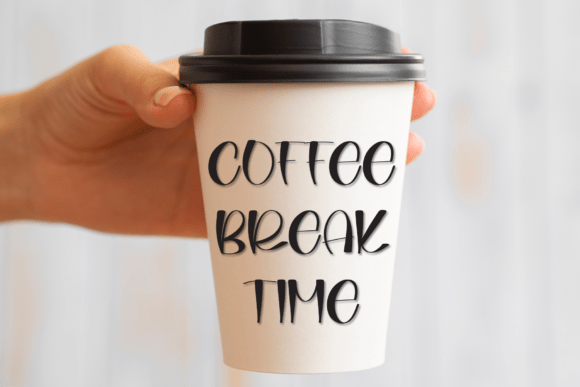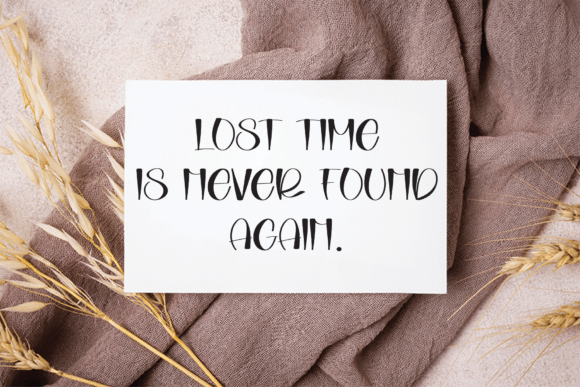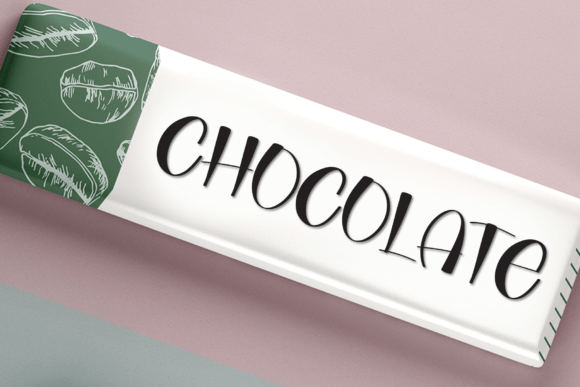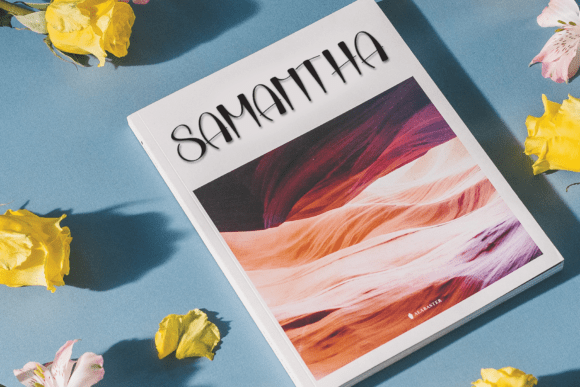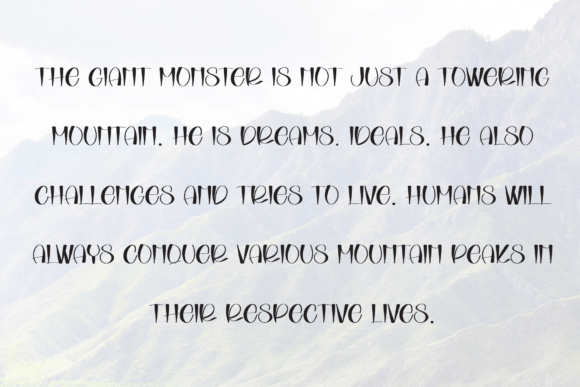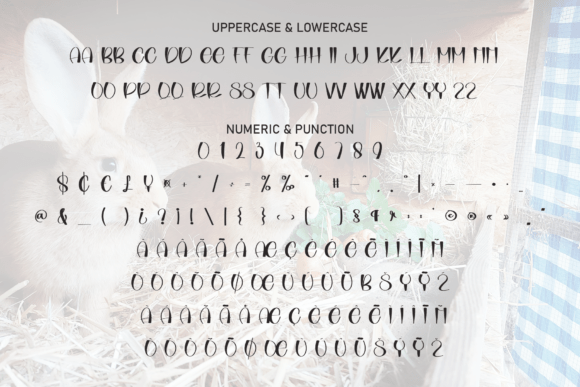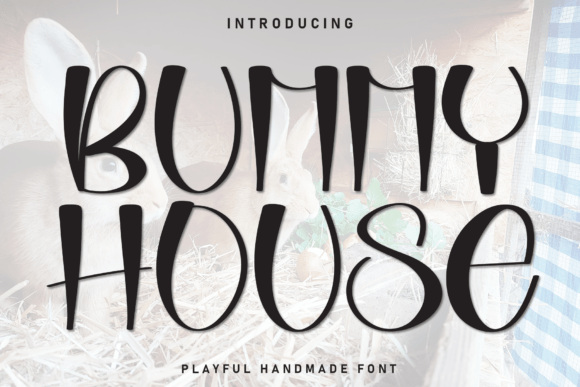
Bunny House Font: The Perfect Blend of Simplicity and Friendliness
In the world of typography, fonts play a crucial role in conveying the tone and personality of a brand or design. Among the numerous fonts available, Bunny House Font stands out for its unique blend of simplicity, friendliness, and approachability. This casual and neat display font has gained popularity among designers and crafters for its ability to add a warm and inviting touch to various design projects.
What Makes Bunny House Font Special?
Bunny House Font is characterized by its clean lines, balanced letterforms, and subtle rounded edges. These features combine to create a modern handwritten typography style with a polished finish. The font’s simplicity and clarity make it an excellent choice for a wide range of applications, including branding, headlines, packaging, and digital content.
One of the key advantages of Bunny House Font is its versatility. Its crisp structure and adaptable style allow it to seamlessly integrate into various design contexts, from playful and creative projects to more formal and professional ones. Whether you’re designing a logo, creating a social media post, or developing a website, Bunny House Font can add a touch of warmth and approachability to your work.
Key Features of Bunny House Font
• Clean Lines: Bunny House Font features clean and well-defined lines that give it a modern and fresh look.
• Balanced Letterforms: The font’s letterforms are carefully crafted to ensure balance and harmony, making it easy to read and visually appealing.
• Subtle Rounded Edges: The subtle rounded edges of Bunny House Font add a touch of friendliness and approachability, making it perfect for designs that require a warm and inviting tone.
• Polished Finish: The font’s polished finish gives it a professional and refined look, making it suitable for a wide range of applications.
Why Designers and Crafters Love Bunny House Font
Bunny House Font has become a favorite among designers and crafters for several reasons:
• Ease of Use: The font’s simplicity and clarity make it easy to use and integrate into various design projects.
• Versatility: Bunny House Font’s adaptability and versatility make it suitable for a wide range of applications, from branding and headlines to packaging and digital content.
• Emotional Connection: The font’s warm and inviting tone helps create an emotional connection with the audience, making it perfect for designs that require a personal touch.
• Professional Look: Bunny House Font’s polished finish and refined look make it an excellent choice for designs that require a professional and modern aesthetic.
How to Use Bunny House Font in Your Designs
Using Bunny House Font in your designs is easy and straightforward:
• Branding: Use Bunny House Font to create a logo or brand identity that exudes warmth and approachability.
• Headlines: Add a touch of personality to your headlines with Bunny House Font’s unique and modern style.
• Packaging: Use Bunny House Font to create eye-catching packaging designs that stand out on store shelves.
• Digital Content: Add a warm and inviting touch to your digital content, including social media posts, blog articles, and website headers.
Bunny House Font is a versatile and modern display font that combines simplicity with a friendly and approachable vibe. Its clean lines, balanced letterforms, and subtle rounded edges make it an excellent choice for designers and crafters looking to add a warm and inviting touch to their designs. With its ease of use, versatility, and professional look, Bunny House Font is sure to become a staple in your font collection.
Whether you’re a seasoned designer or a crafty DIY enthusiast, Bunny House Font is an excellent addition to your typography arsenal. So why not give it a try and see how it can elevate your designs to the next level?